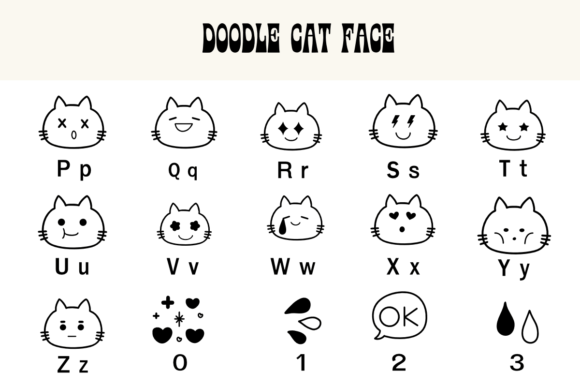
Doodle Cat Face Font
Doodle Cat face is a dingbats font with a sketched theme style. This font can enhance your creative projects such as wedding invitations, DIY, crafts, decorations, logos, and many other creative ideas.